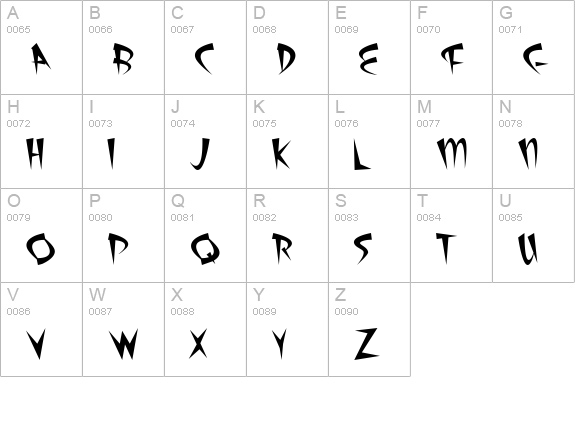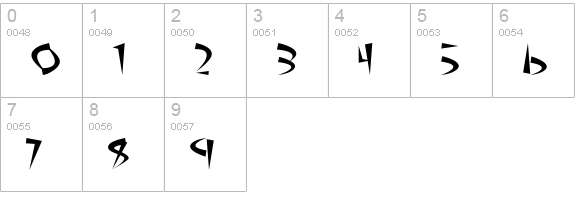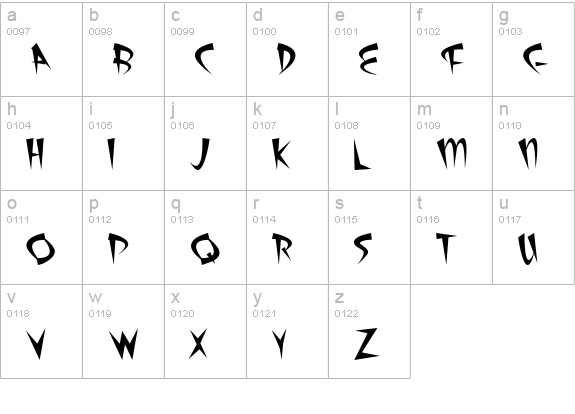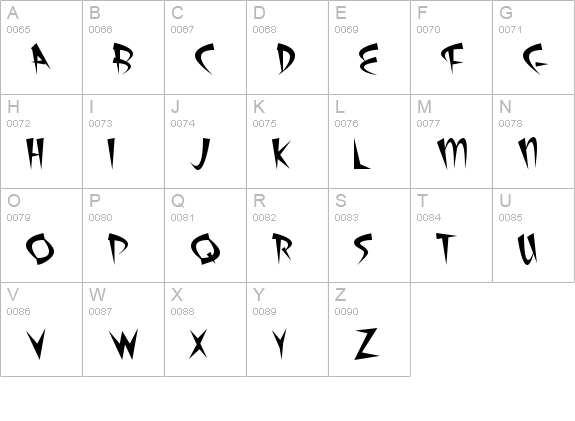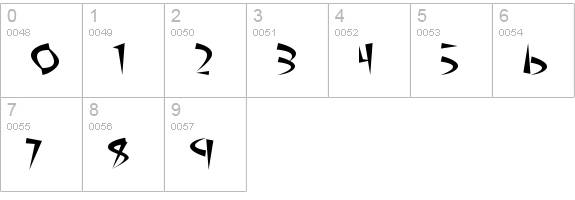
Atomic Sushi is a playful and modern font that perfectly captures the essence of sushi - fun, vibrant, and full of flavor. With its quirky yet elegant design, this font is sure to make your designs stand out. The unique combination of sharp edges and smooth curves gives Atomic Sushi a dynamic and eye-catching appearance. This font is perfect for a variety of projects, from branding and packaging to social media graphics and website design. Whether you're creating a menu for a sushi restaurant or designing a poster for a food festival, Atomic Sushi is the perfect choice to add a touch of creativity and personality. And the best part? Atomic Sushi is completely free to download at FontsMarket.com. So go ahead and spice up your designs with this delightful font today!